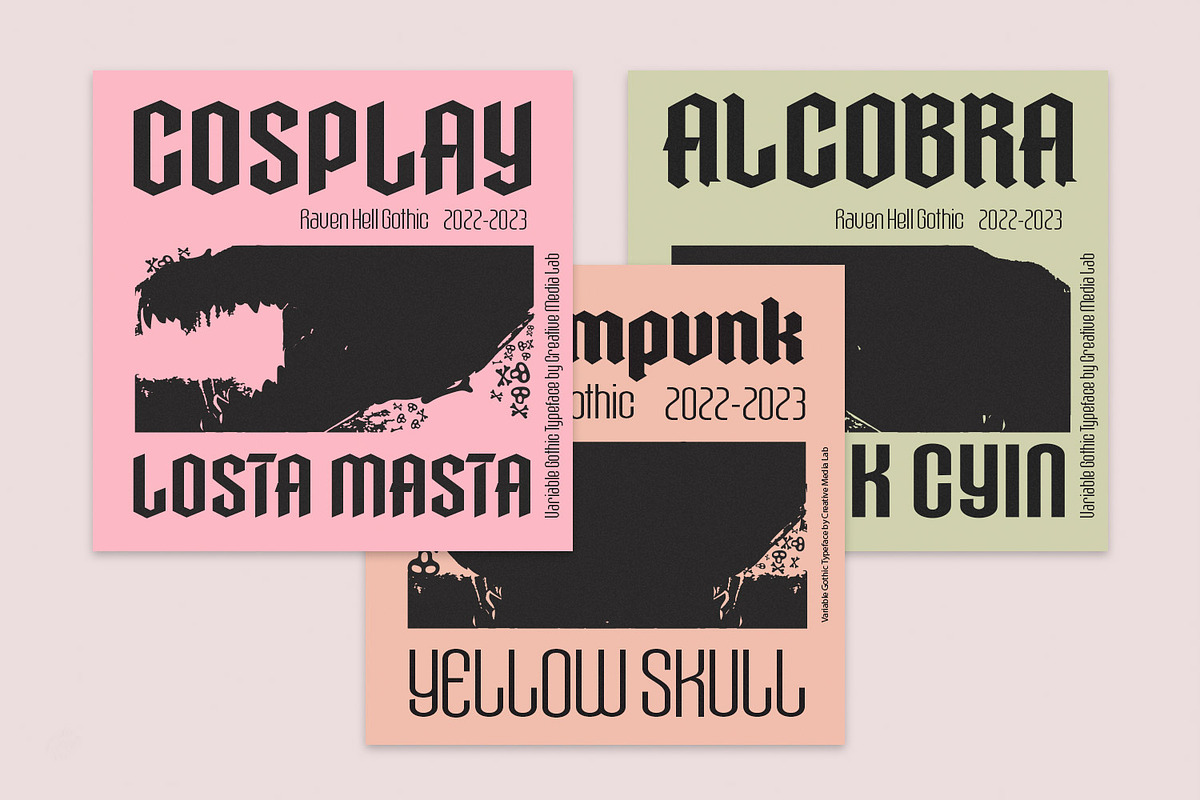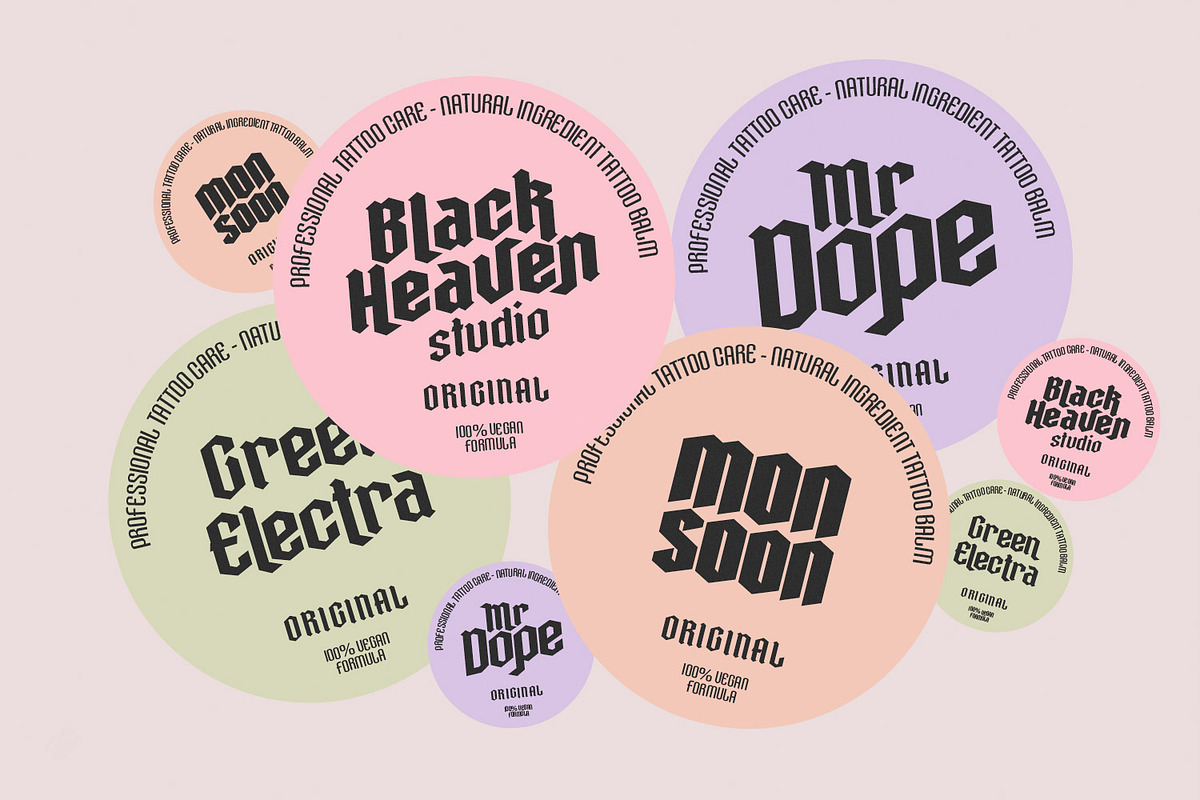
Raven Hell is a simple and modern gothic font inspired by the culture and architecture of the Middle Ages. What’s unique about Raven hell is that it can be sans serif or blackletter, depending on your choice of design theme.
Raven Hell can be used in many types of modern designs ranging from product labels to tattoos, badges, logos, poster titles, and much more.
These sets of fonts contained 4 families with Six styles each and dozens of alternates. Also a variable format that has 3 axes which can generate hundreds of weights and styles (requiring software that supports variable fonts such as Adobe CC 2018 at least).